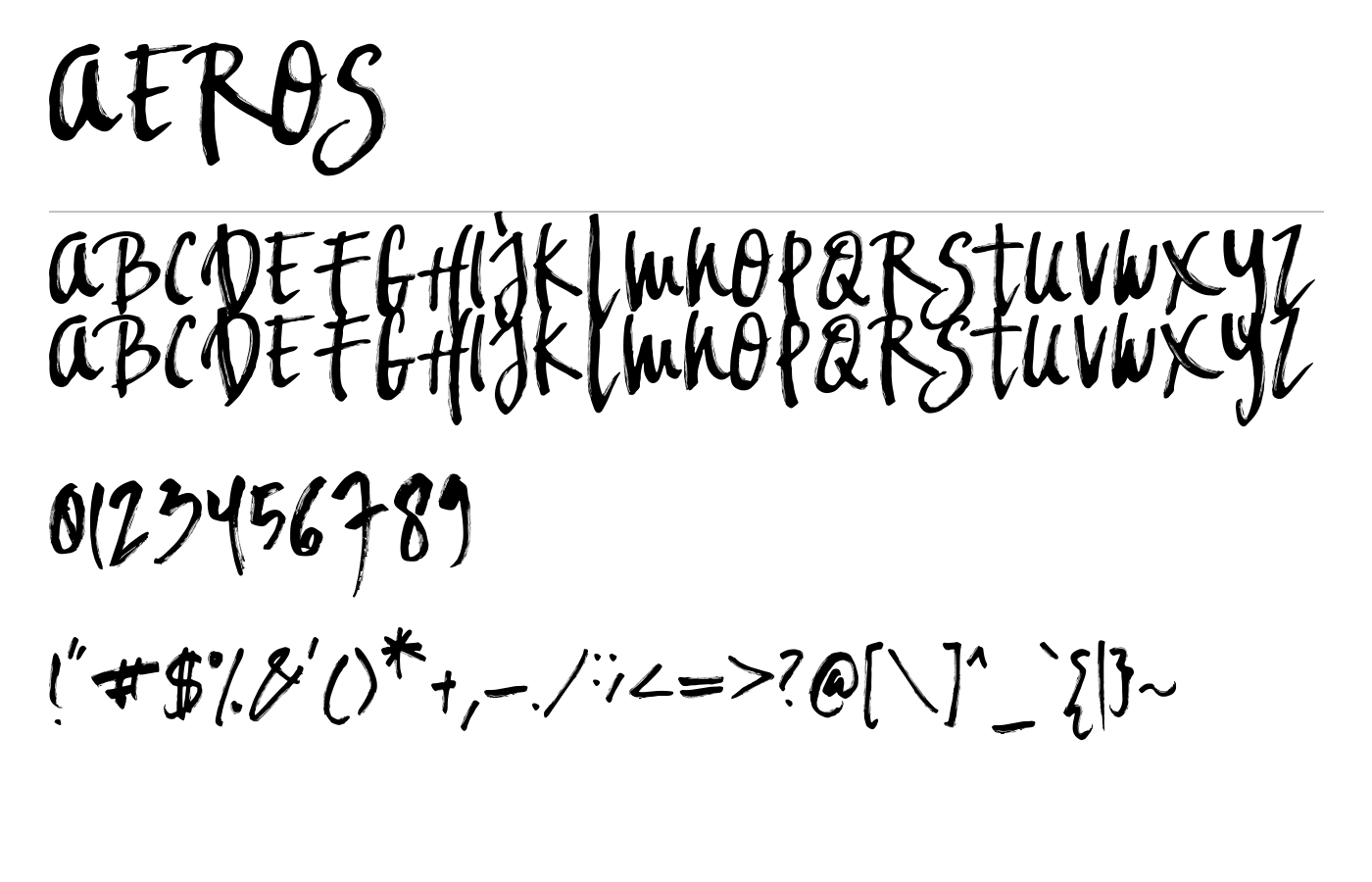
Aeros is a lively handwritten script font characterized by its bold, brushstroke style with varying thickness and a slightly rough texture that adds a dynamic, artistic feel. Its tall, narrow letters with irregular shapes and spontaneous strokes make it perfect for creative, casual, and expressive designs such as logos, posters, and packaging where personality and energy are key. This font works best in display uses where its unique hand-crafted vibe can grab attention and convey a sense of authenticity and individuality.
Aeros Font